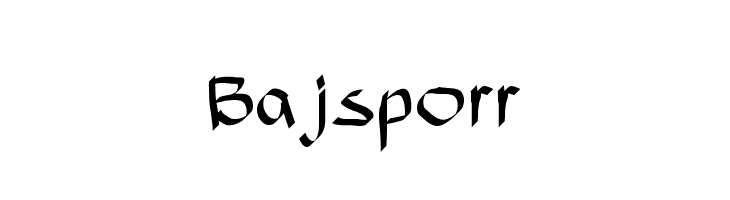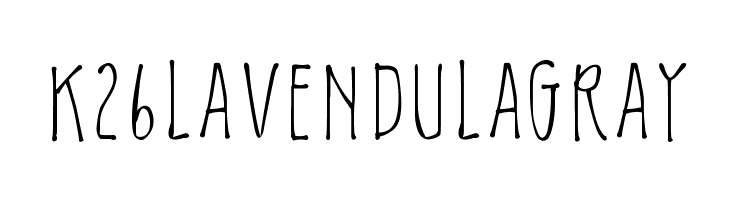
A playful, bold handwritten font with rounded characters.
A dynamic, italicized handwritten font with smooth, flowing strokes.
A playful, handwritten font with a casual and informal style.
A playful, hand-drawn font with rounded, slightly irregular letterforms.
A playful, handwritten font with tall, narrow letters and rounded edges.
A playful, handwritten font with tall, narrow letters and slight stroke variations.
A playful, whimsical handwritten font with irregular strokes and a casual charm.